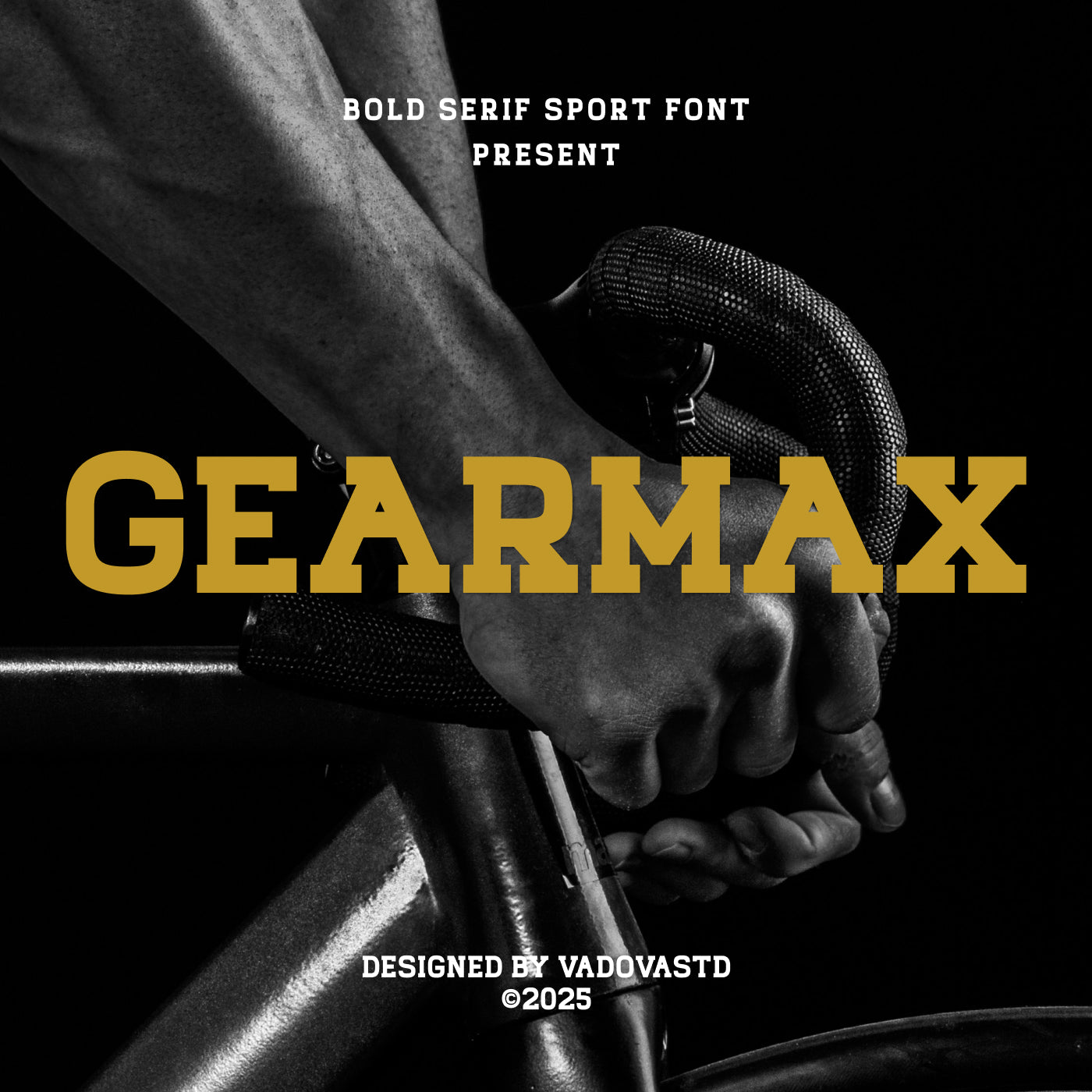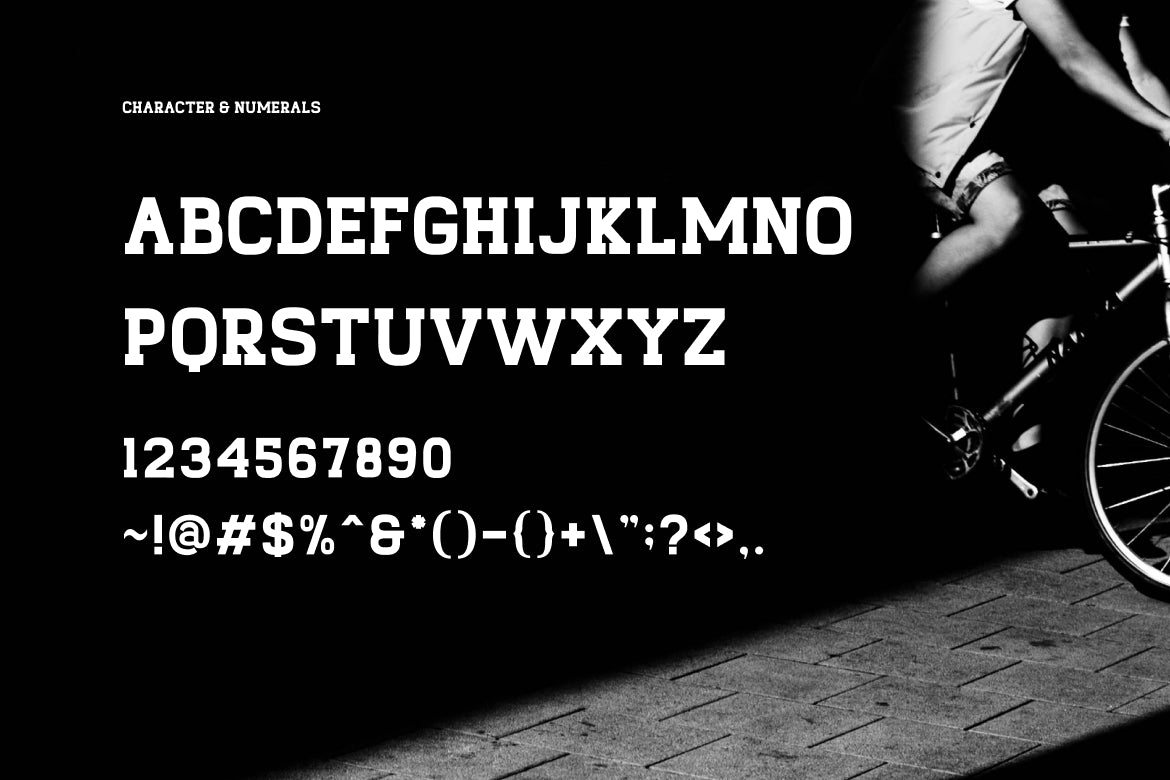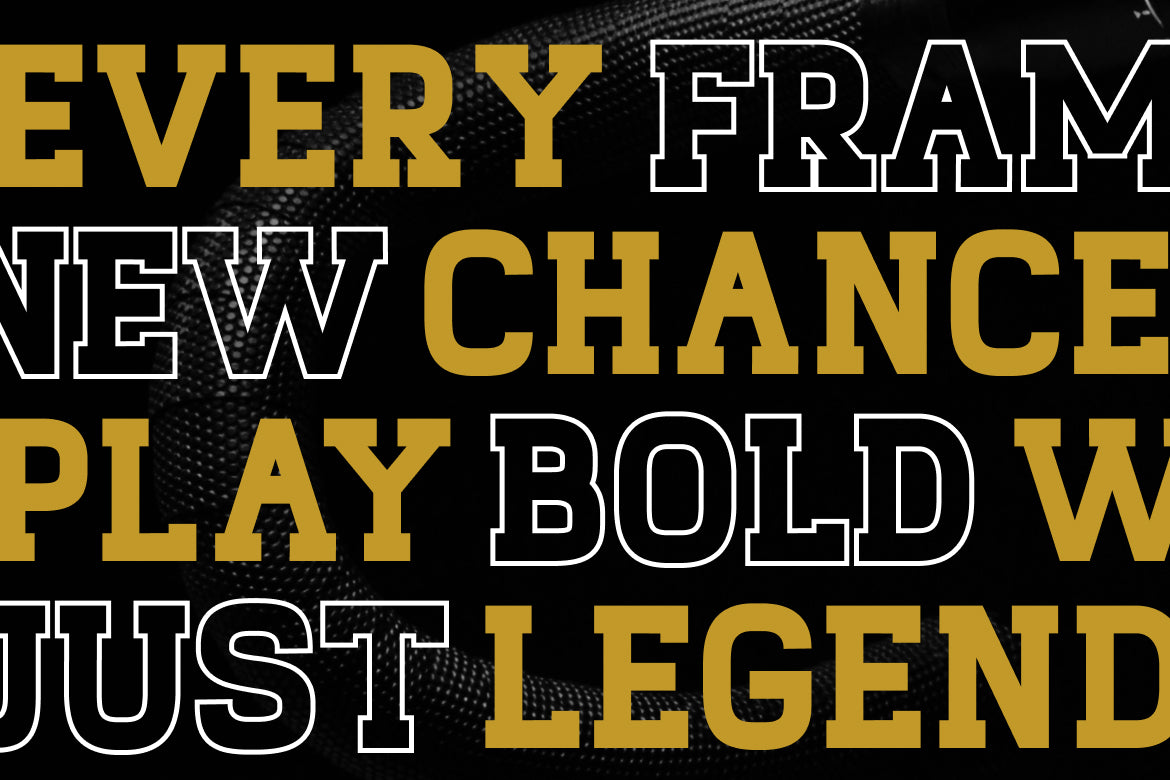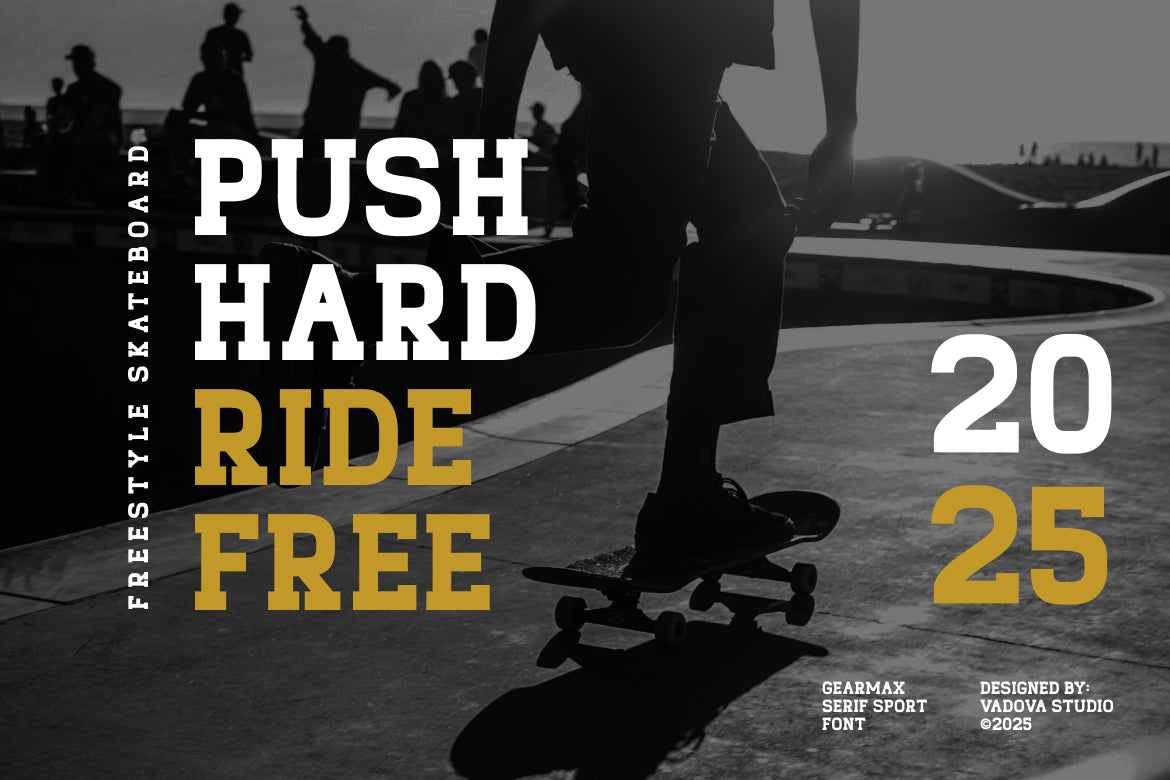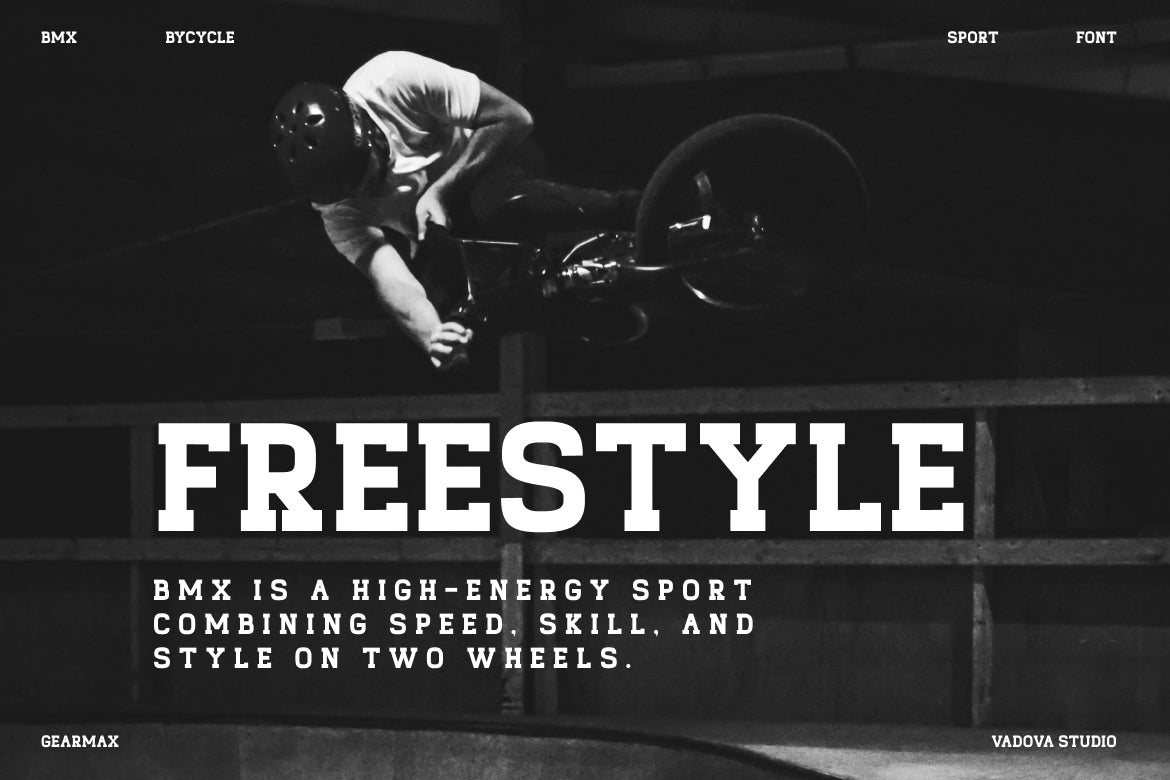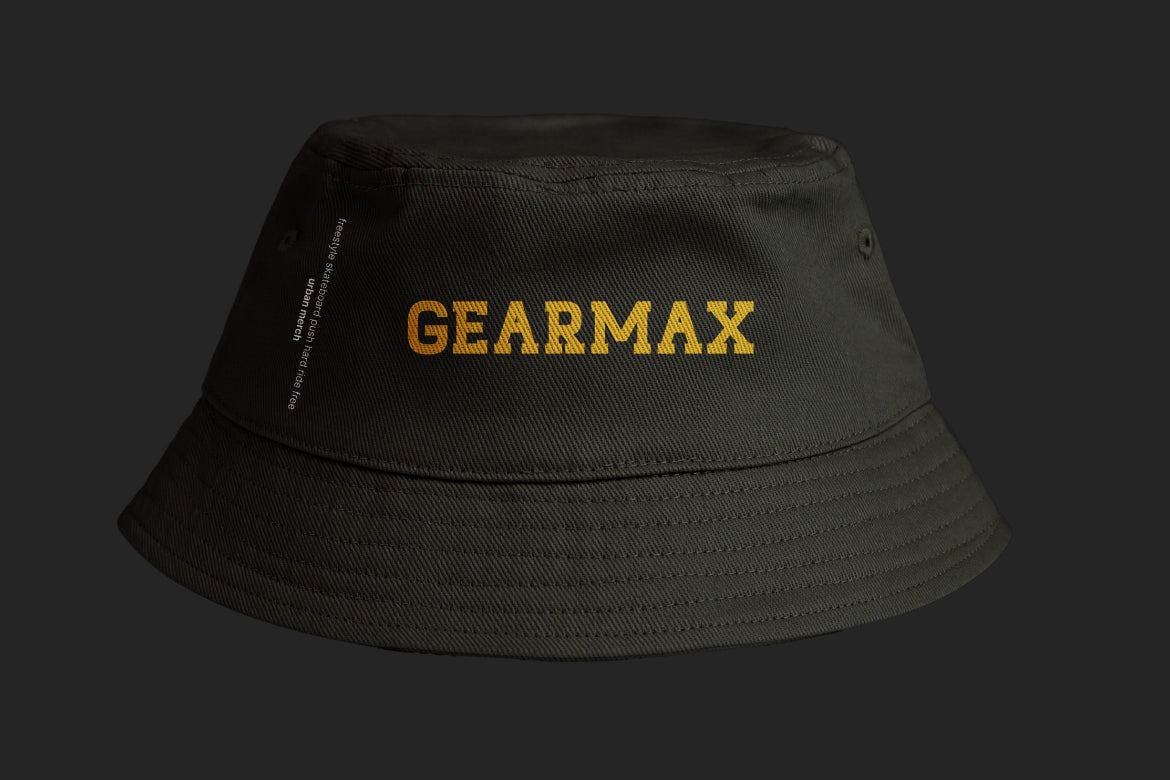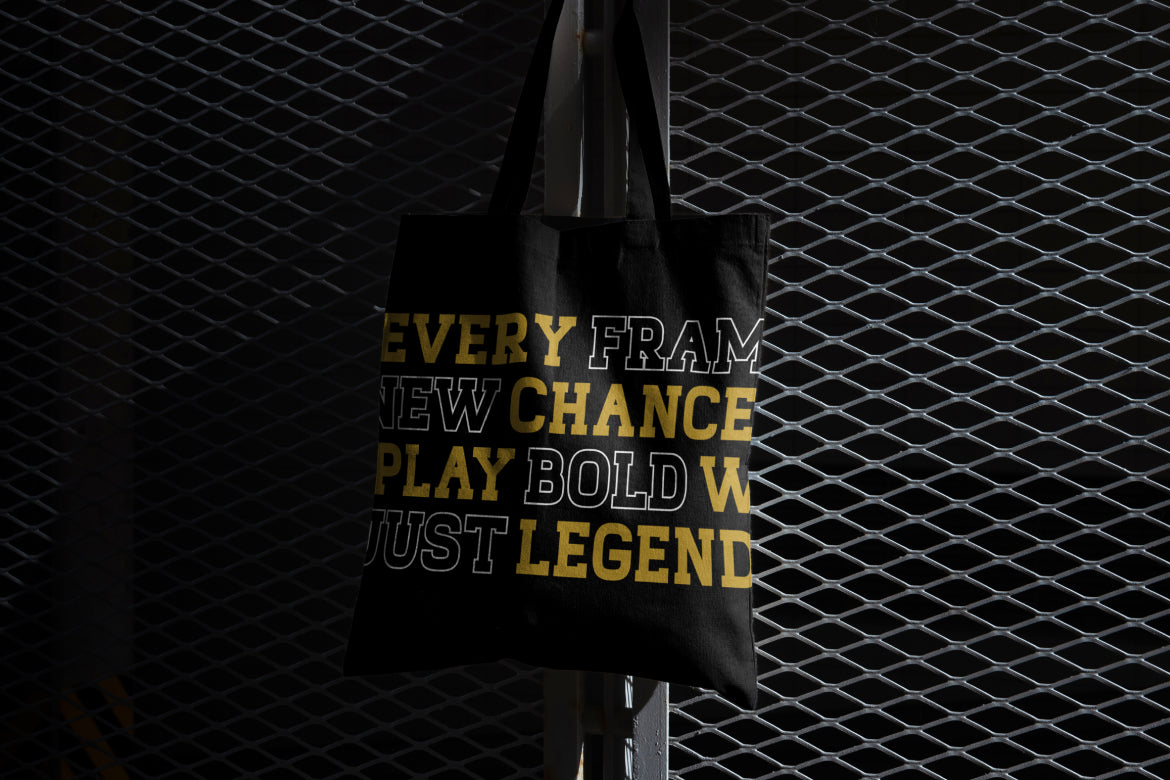
Gearmax Bold Serif Sport Font
Gearmax Serif Font is a powerful athletic display typeface engineered to deliver strength, confidence, and high-impact typography. Built with bold slab-inspired serifs, sturdy geometric construction, and thick block proportions, the font creates an unmistakable sports identity while maintaining excellent readability. Sharp corners, solid vertical strokes, and balanced spacing give every headline a commanding presence that performs exceptionally well across both digital and print applications.
Designed for bold branding and competitive visual communication, Gearmax includes uppercase and lowercase characters, numerals, punctuation, for maximum creative flexibility. Its strong letterforms are optimized for large-scale headlines, logos, uniforms, merchandise, promotional graphics, and marketing materials where visibility and authority are essential. Whether used for fitness brands, esports teams, sporting events, outdoor campaigns, or collegiate identities, Gearmax delivers bold typography that communicates power, determination, and performance.
Gearmax Bold Serif Sport Font is a slab-serif display typeface with bold geometric construction, thick block proportions, and sharp corners. It includes uppercase and lowercase characters, numerals, and punctuation, available in OTF, TTF, and WOFF formats with multiplatform compatibility.